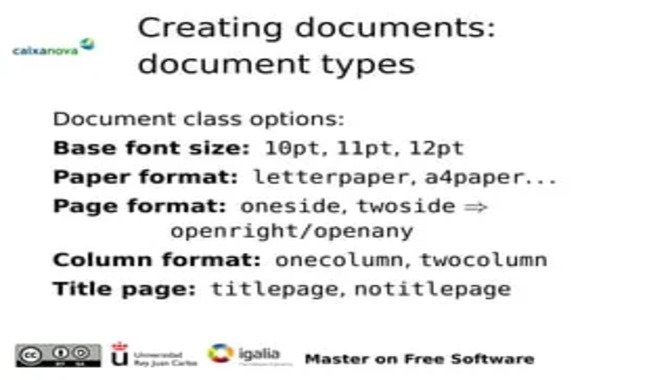
Typography is essential to any document, especially in the professional world. It can greatly enhance the overall visual appeal of a document, as well as its readability and comprehension.
However, achieving professional-grade typography can be challenging, particularly when setting fonts. This is where Latex, a document preparation system, comes in handy.
With its advanced typesetting features and extensive support for font selection, Latex is an excellent tool for producing high-quality documents with professional typography.
LaTeX’s Set Font feature provides unparalleled control over the appearance of your text, allowing you to create sophisticated layouts easily. This powerful tool lets you fine-tune everything from font size and style to kerning and line spacing.
Whether you’re a seasoned pro or a newbie to the typesetting world, LaTeX’s Set Font has something to offer. Here, we’ll explore the different font options available in LaTeX and show you how to use them.
What Is Latex?
Latex is a document markup language widely used in scientific and technical publishing. It is well known for its easy-to-use syntax and ability to produce high-quality documents.
To use Latex to set the font in a document, the user must first define a font family. This is done by using the \usepackage{} command.
This command allows you to specify the font family, style, and size. For example, if you want to use Times New Roman as your font, you would specify \usepackage{times} in the document.
Additionally, you can also specify font style and size within this command. Once the font family is defined, you can use the \fontfamily{} command to set the font for any document portion, followed by the \selectfont command.
The \fontsize{}{} command can define the font size. For example, \fontsize{12}{14} would set the font size to 12-point type with a line spacing of 14 points. This is useful for creating a document that is easily read and looks professional.
Furthermore, it can be used to adjust the readability of a document, making it easier to read on different devices or with different types of eyesight.
The font size can also be adjusted to emphasize certain parts of the document, such as headings or titles, making it easier to find important information.
Finally, it is also important to set fonts compatible with the document’s language and culture, ensuring it is readable for everyone.
How Can Latex’s Set Font Create Beautiful Documents That Stand Out?
Whether it’s a report, thesis, or presentation, the text you use and its format can make all the difference. That’s where the power of LaTeX comes in.
With its set font command, you can create documents that are not only functional but also beautiful. First, determine which font you want to use in your document.
Many different font families and styles can be used with LaTeX. After deciding on the font, you must use the \font command to specify the font family and style.
For example, to set the font to Helvetica in bold, you would use the command \fontfamily{Helvetica}\bfseries. You can also use different font sizes, for example, \fontsize{14pt}{16pt}\selectfont.
To finish setting the font in your document, you must use the \textbf or \textit command to make your text bold or italic.
With these commands and creativity, you can create the perfect font for your document. You can also use the \textsc and \textsf commands to make your text small caps or sans serif.
Finally, you can style your text typewriter using the \texttt command. With these commands, you can easily customize your document’s font to fit your needs.
Step- 01.
Use the set font command to change the default font of your document. You can use the command \setmainfont{fontname} to set the main font of your document.
You can use any font you have installed on your computer. For example, you can use the command \setmainfont{Times New Roman} to set the font to Times New Roman.
You can also set the font size using the \fontsize{fontsize}{baselineskip} command, where fontsize is the desired font size, and baseline skip is the spacing between lines. You can create a more visually appealing document by changing the font and size.
Step- 02.
Select a font that complements the tone and purpose of your document. For example, choose a serif font like Times New Roman for a formal document or a sans serif font like Arial or Helvetica for a more casual document.
Additionally, consider font size and line spacing, which can help create the desired tone and readability. After selecting a font, you can set the font size, line spacing, and other font-related variables in your LaTeX document.
Step- 03.
Experiment with different font sizes and styles to improve readability. Consider adding small stylistic tweaks, such as making all-caps words, bolding important words, or italicizing certain words.
For instance, you can use the \textbf{} command to set the bold font for titles or headings. Similarly, you can use the \textit{} command to set an italic font for certain words.
Use the command “\kern{value} to adjust kerning.” For example, “\kern{2pt}” will add 2 points of spacing between characters.
5. How To Use Latex’s Set Font Function To Create Appealing Text Elements In A Document?
Ans: You can use the following command: \section{\textbf{\LARGE Heading}} Similarly, to create a subheading in italic and medium font size, you can use the following command: \subsection{\textit{\normalfont\mdseries\textbf{\large Subheading}}}